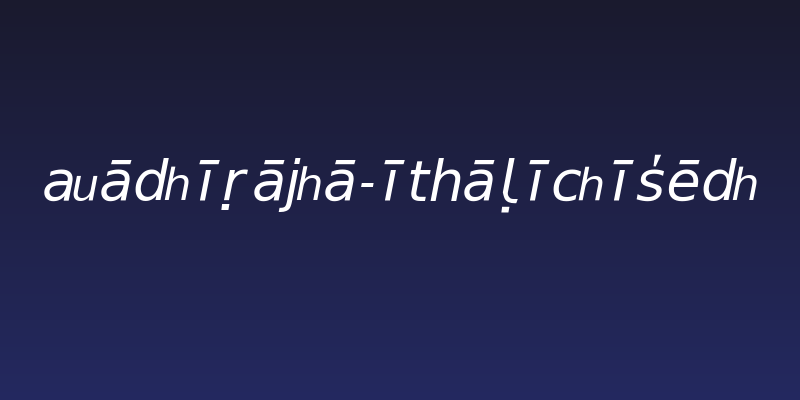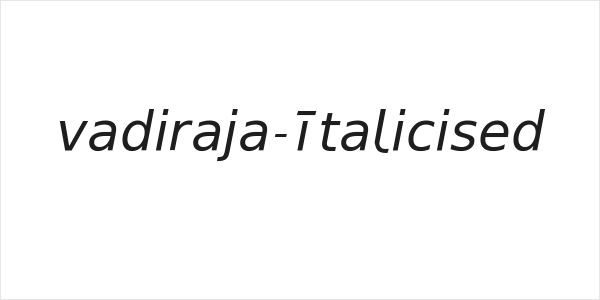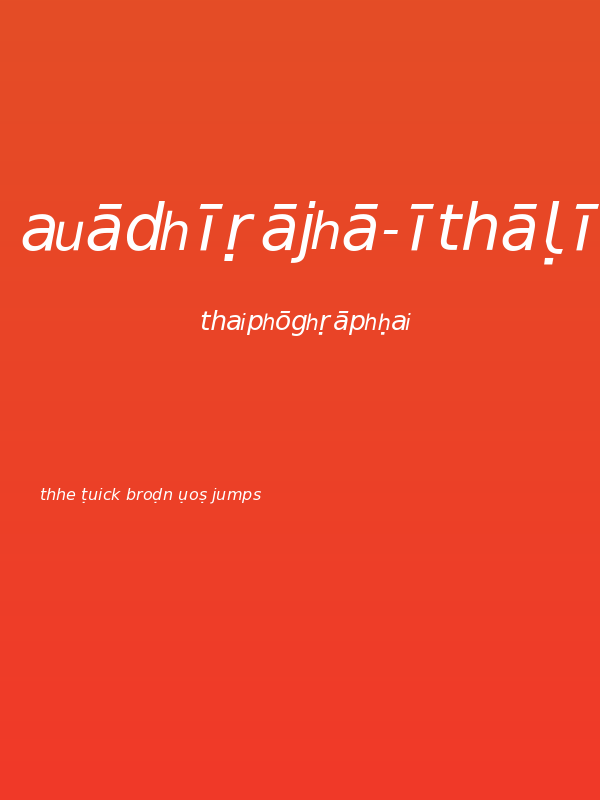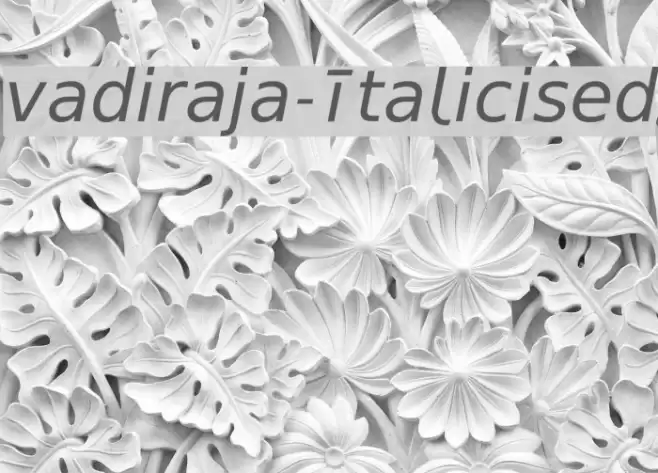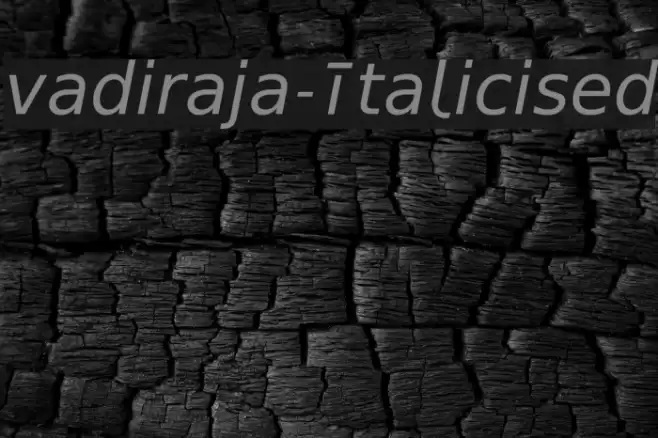
vadiraja-Italicised Font
vadiraja-Italicised Description
This font exhibits a modern and sleek italic style, characterized by its smooth curves and slightly slanted orientation. The characters are well-defined with a consistent stroke width, providing a clean and professional appearance. The font includes a variety of diacritical marks, enhancing its versatility for different languages and phonetic representations. The overall design is balanced, with a moderate contrast between thick and thin strokes, making it suitable for both digital and print media. The spacing between characters is normal, ensuring readability while maintaining a compact look. This font's italic nature adds a dynamic and elegant touch, making it ideal for creative and formal applications.